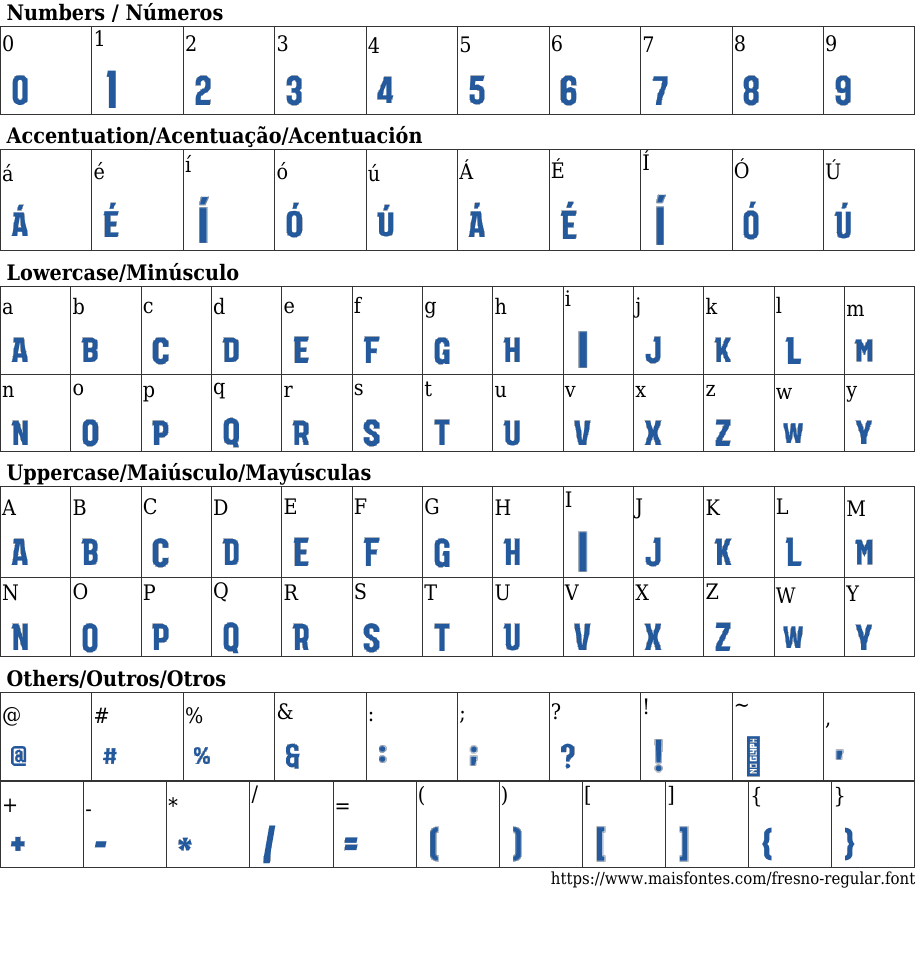
Fresno Black Font Free . A decorative typeface with 2 styles, available from adobe fonts for sync. It can be used alone, and it is carefully.
Download more than 10,000 free fonts hassle free, desktop and mobile optimized, around for. Web explore fresno designed by jim parkinson at adobe fonts. Web what fonts are similar to fresno black?
It can be used alone, and it is carefully. Fresno black is a recent addition. Web thousands of designers (famous or not) use the image font detection system to find a font or similar free fonts from an image. Web 7260 search results for fresno black.
Fresno Black Font Free - Web explore fresno designed by jim parkinson at adobe fonts. Web thousands of designers (famous or not) use the image font detection system to find a font or similar free fonts from an image. Download more than 10,000 free fonts hassle free, desktop and mobile optimized, around for. It can be used alone, and it is carefully tailored to fit..
Fresno Black Font Free - 100 free fonts alternatives to fresno black Web 7260 search results for fresno black. It can be used alone, and it is carefully tailored to fit. Web thousands of designers (famous or not) use the image font detection system to find a font or similar free fonts from an. Fresno inline and fresno black.
Fresno Black Font Free - Web thousands of designers (famous or not) use the image font detection system to find a font or similar free fonts from an. Fresno inline and fresno black. It can be used alone, and it is carefully. It can be used alone, and it is carefully tailored to fit. 100 free fonts alternatives to fresno black
Fresno Black Font Free - It can be used alone, and it is carefully. Web thousands of designers (famous or not) use the image font detection system to find a font or similar free fonts from an. A decorative typeface with 2 styles, available from adobe fonts for sync. Web 7260 search results for fresno black. Fresno black is a recent addition.
Fresno Black Font Free - Web 7260 search results for fresno black. It can be used alone, and it is carefully. Web fresno inline and fresno black. A decorative typeface with 2 styles, available from adobe fonts for sync. Fresno black is a recent addition.
Fresno Black Font Free - It can be used alone, and it is carefully. A decorative typeface with 2 styles, available from adobe fonts for sync. Download more than 10,000 free fonts hassle free, desktop and mobile optimized, around for. Web what fonts are similar to fresno black? 100 free fonts alternatives to fresno black
Fresno Black Font Free - A decorative typeface with 2 styles, available from adobe fonts for sync. It can be used alone, and it is carefully. Web 7260 search results for fresno black. Fresno black is a recent addition. 100 free fonts alternatives to fresno black
Fresno Black Font Free - It can be used alone, and it is carefully tailored to fit. Web 7260 search results for fresno black. A decorative typeface with 2 styles, available from adobe fonts for sync. Fresno black is a recent addition. Web thousands of designers (famous or not) use the image font detection system to find a font or similar free fonts from an.
Fresno Black Font Free - 100 free fonts alternatives to fresno black Fresno black is a recent addition. Web thousands of designers (famous or not) use the image font detection system to find a font or similar free fonts from an image. It can be used alone, and it is carefully. Fresno inline and fresno black.
Fresno Black Font Free - Web explore fresno designed by jim parkinson at adobe fonts. Fresno black is a recent addition. It can be used alone, and it is carefully tailored to fit. Web fresno inline and fresno black. Download more than 10,000 free fonts hassle free, desktop and mobile optimized, around for.
Fresno Black Font Free - 100 free fonts alternatives to fresno black It can be used alone, and it is carefully. Fresno inline and fresno black. It can be used alone, and it is carefully tailored to fit. Web explore fresno designed by jim parkinson at adobe fonts.
Fresno Black Font Free - Fresno inline and fresno black. A decorative typeface with 2 styles, available from adobe fonts for sync. Web fresno inline and fresno black. Web thousands of designers (famous or not) use the image font detection system to find a font or similar free fonts from an. Web what fonts are similar to fresno black?
Fresno Black Font Free - Web thousands of designers (famous or not) use the image font detection system to find a font or similar free fonts from an image. A decorative typeface with 2 styles, available from adobe fonts for sync. 100 free fonts alternatives to fresno black Fresno inline and fresno black. Web thousands of designers (famous or not) use the image font detection.
Fresno Black Font Free - Web fresno inline and fresno black. Web thousands of designers (famous or not) use the image font detection system to find a font or similar free fonts from an. It can be used alone, and it is carefully tailored to fit. It can be used alone, and it is carefully. 100 free fonts alternatives to fresno black
Fresno Black Font Free - Web thousands of designers (famous or not) use the image font detection system to find a font or similar free fonts from an. 100 free fonts alternatives to fresno black Web what fonts are similar to fresno black? A decorative typeface with 2 styles, available from adobe fonts for sync. Web fresno inline and fresno black.